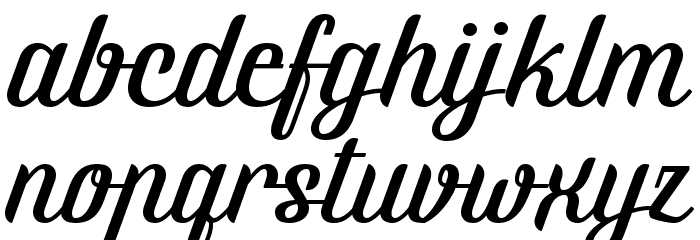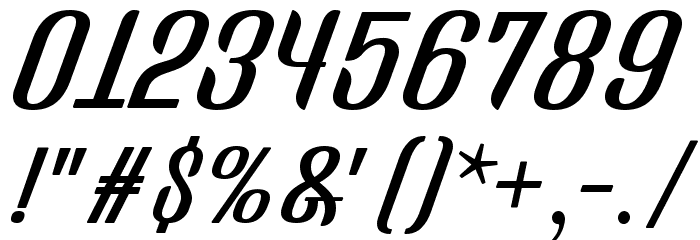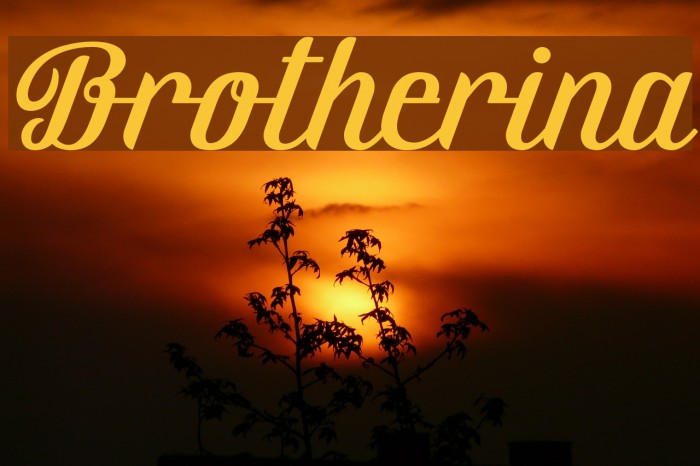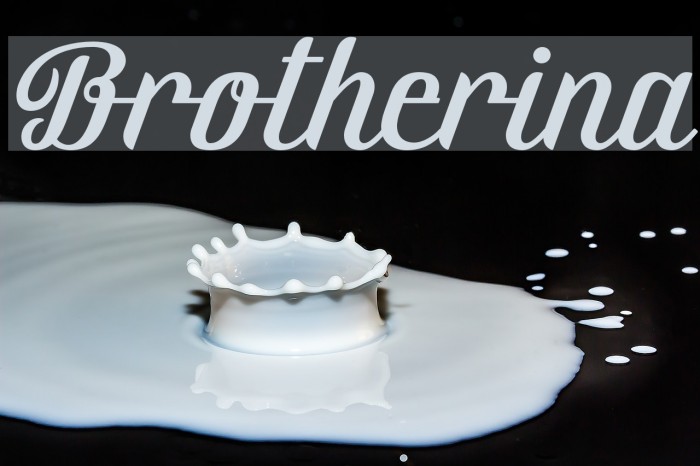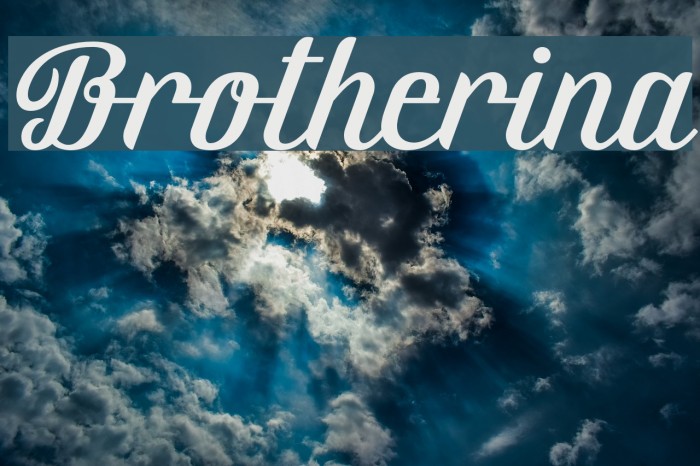
Brotherina Font
This font features a flowing, cursive style with a modern twist. The uppercase letters are elegantly connected, giving a sense of continuity and grace. The lowercase letters maintain a consistent slant, enhancing the script-like appearance. Numbers are bold and slightly slanted, matching the overall aesthetic. Special characters are designed with the same fluidity, ensuring a cohesive look across all text. The font's smooth curves and balanced proportions make it versatile for various design needs.
A modern, cursive script font with elegant, flowing lines.
- Proposed Projects: Ideal for wedding invitations, greeting cards, branding, and elegant logo designs.
- Use Case: Logos, Invitations, Branding